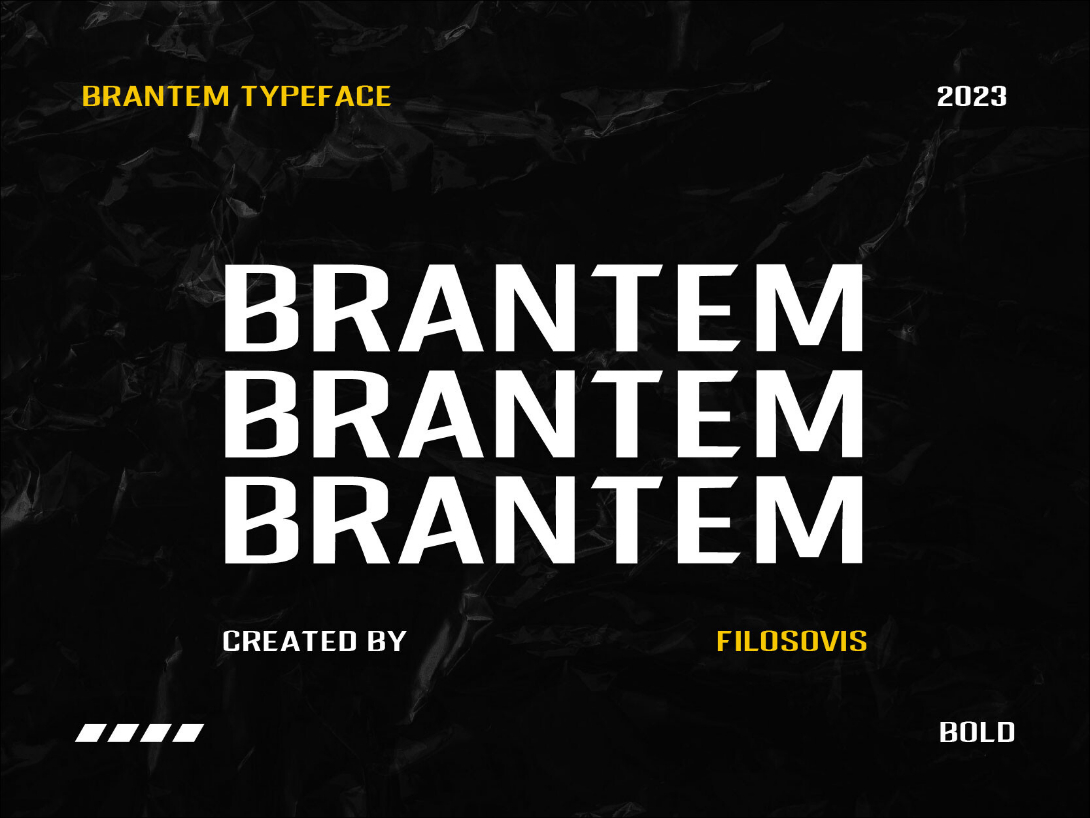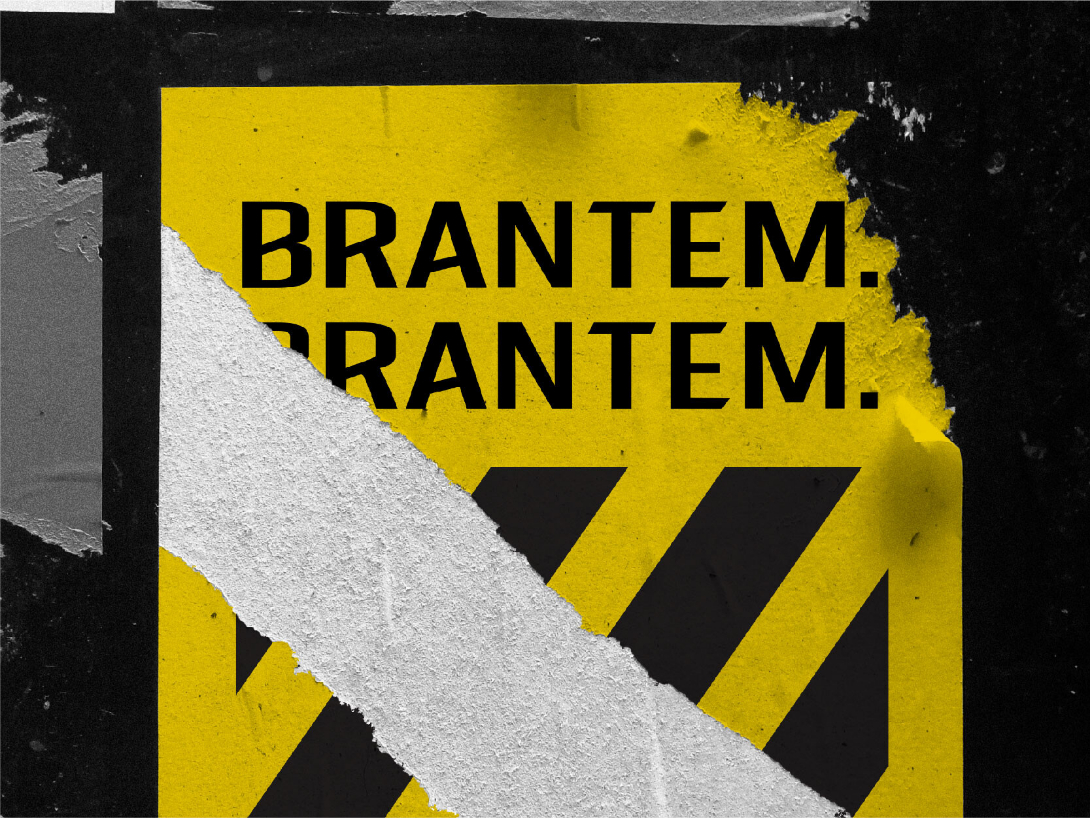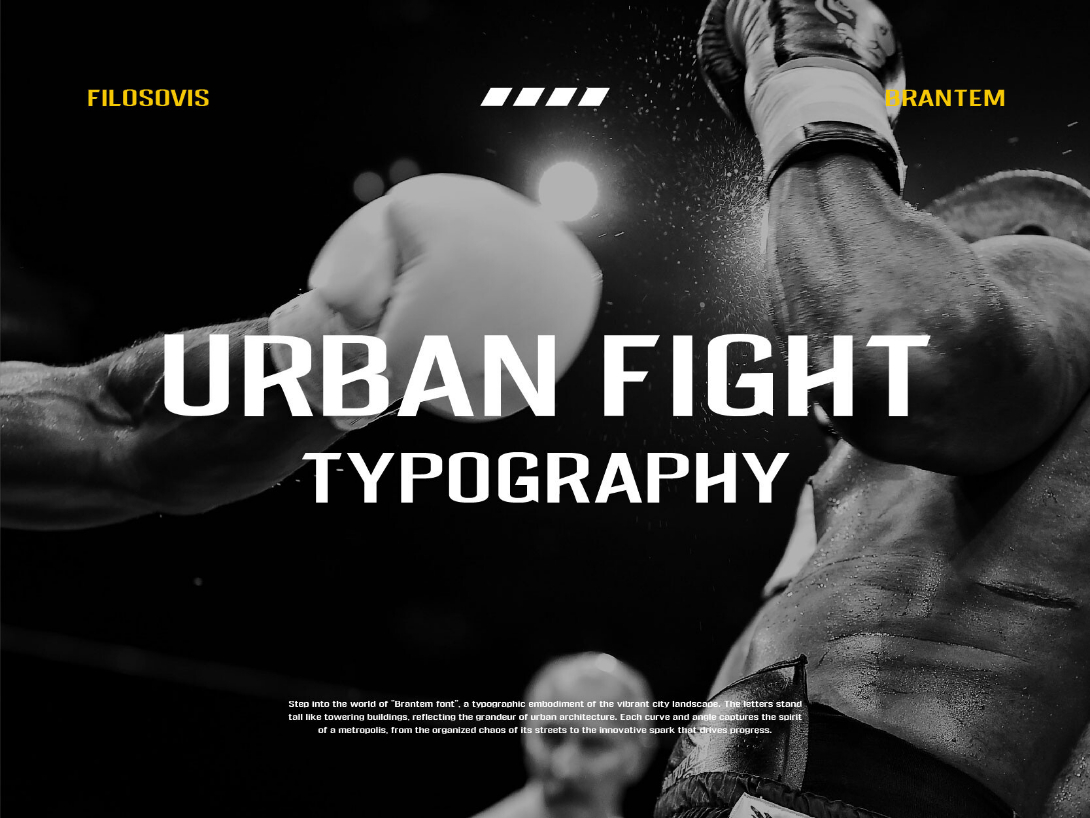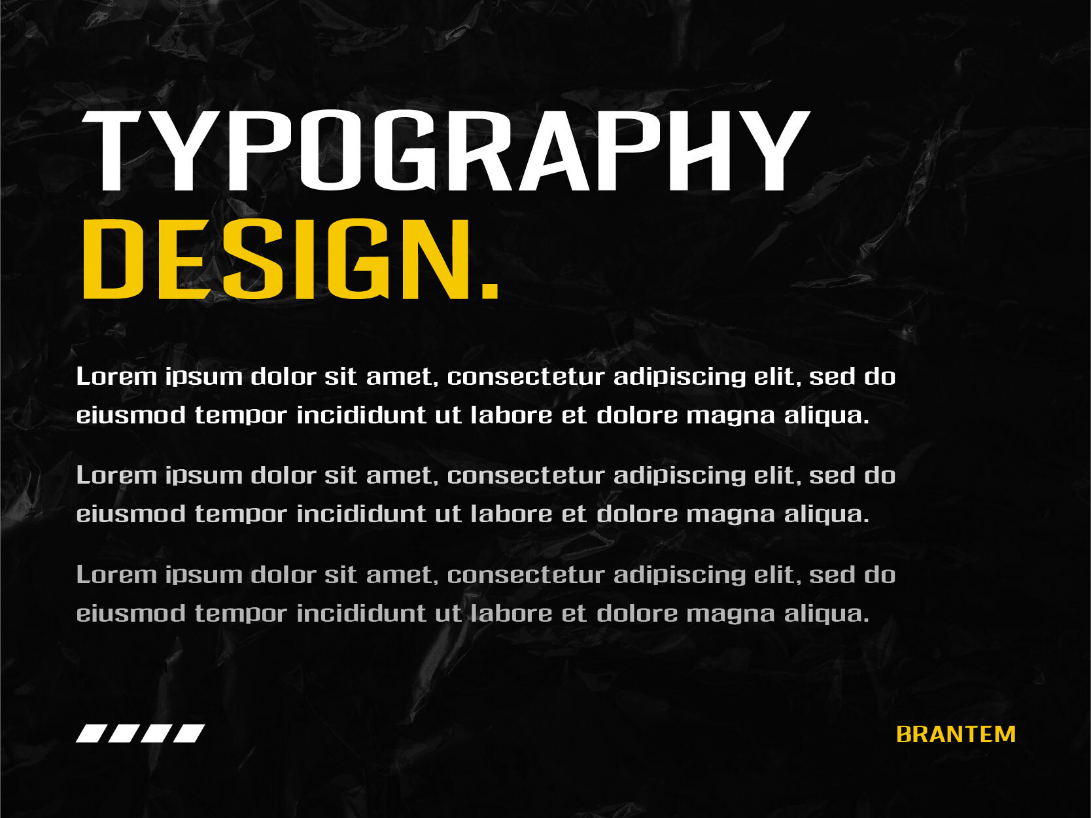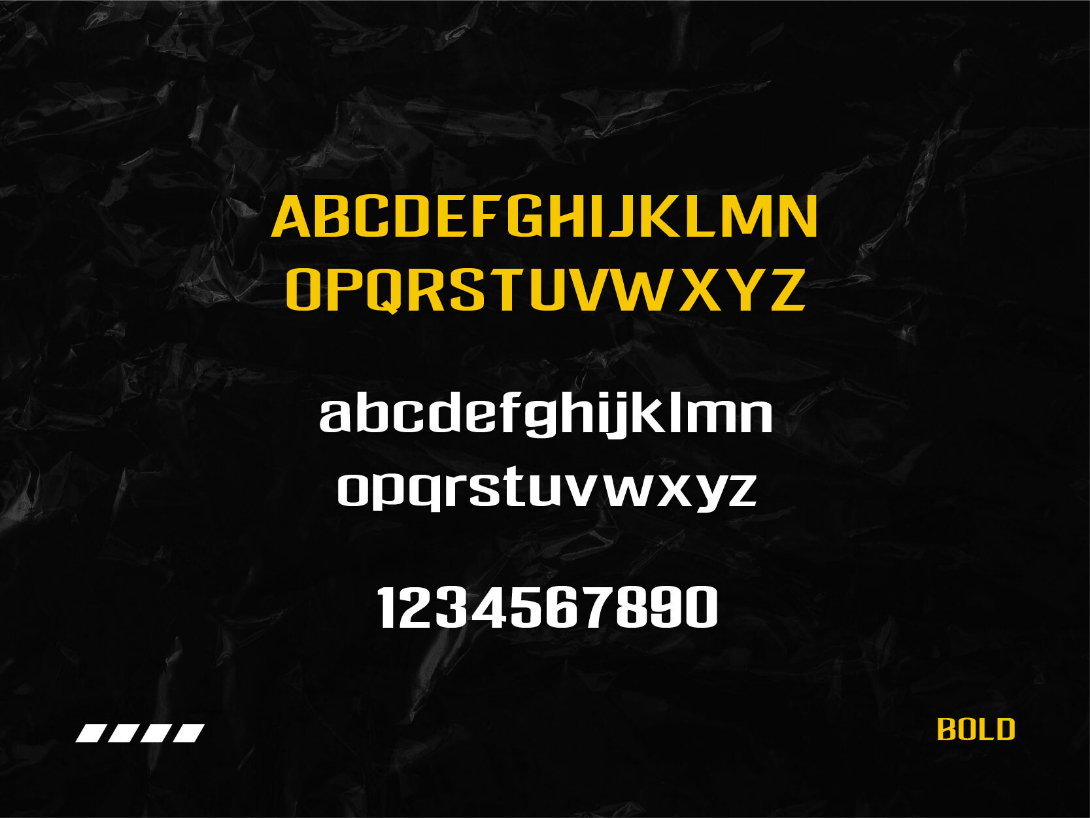
Brantem Font
About Brantem Font
‘BRANTEM’ font is characterized by its BOLD and URBAN STYLE appearance. It looks great on bold titles and flashy banners. It will give your design an artistic and casual look.